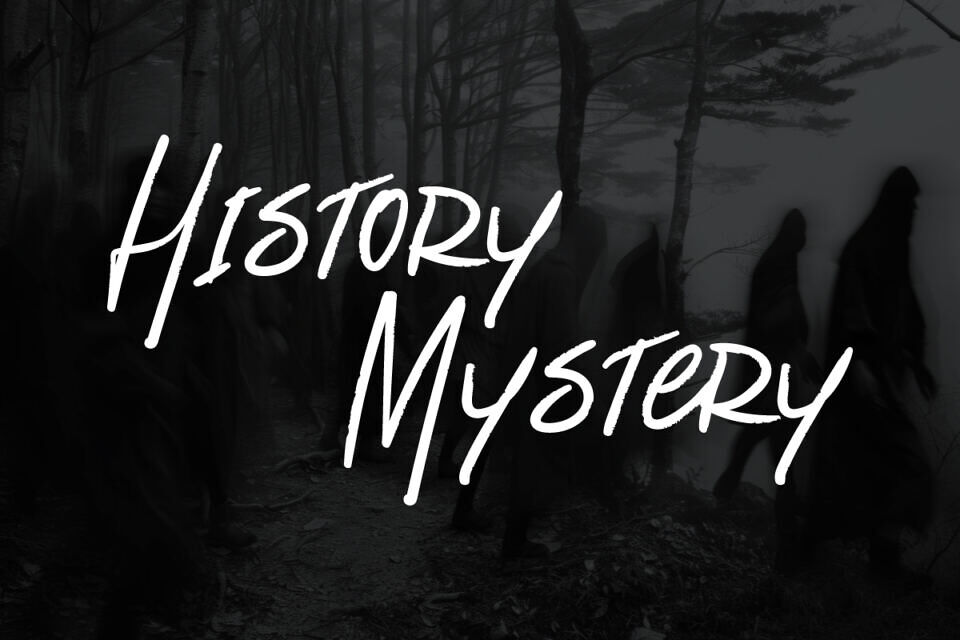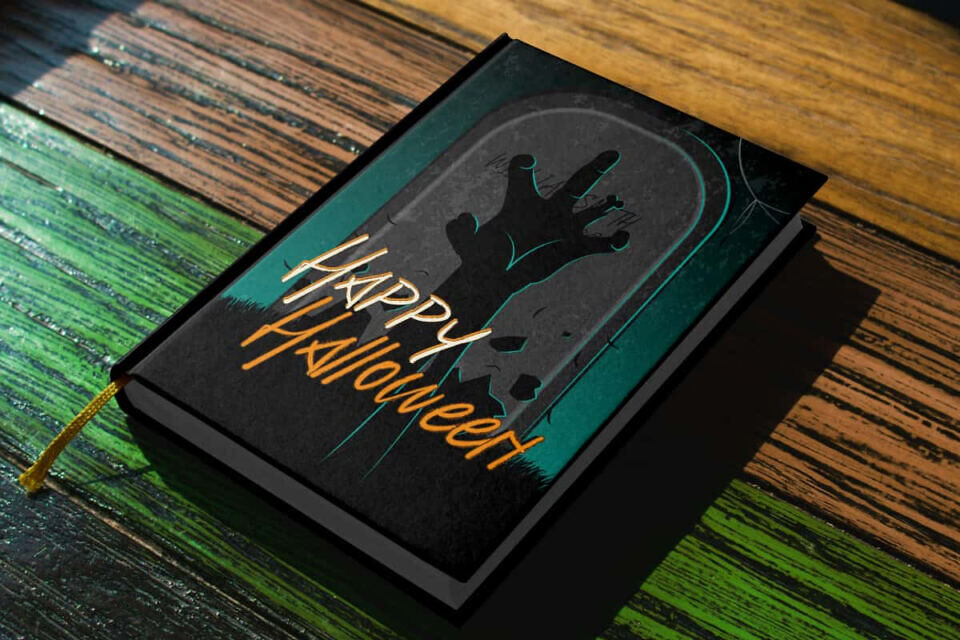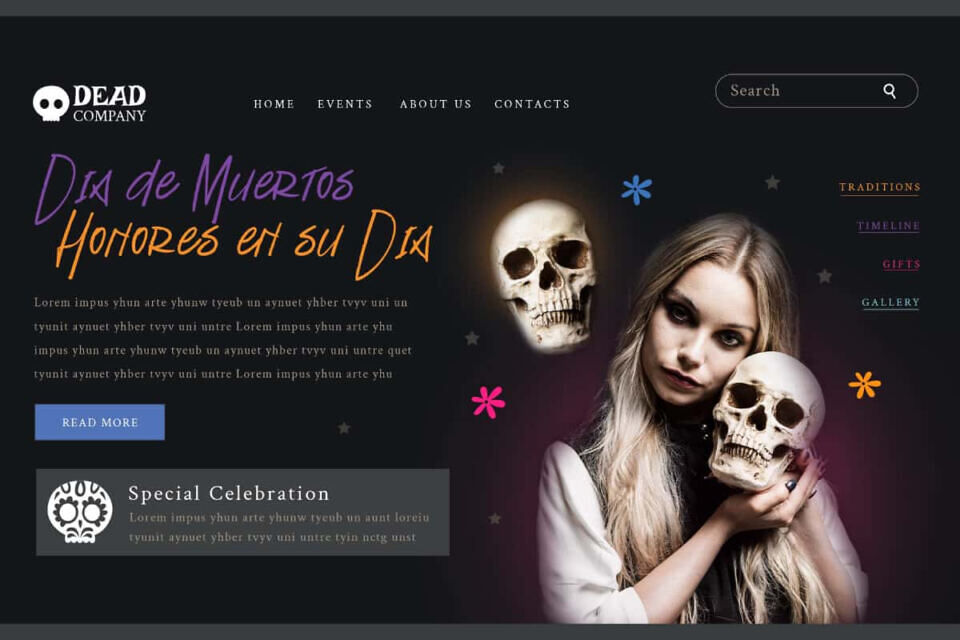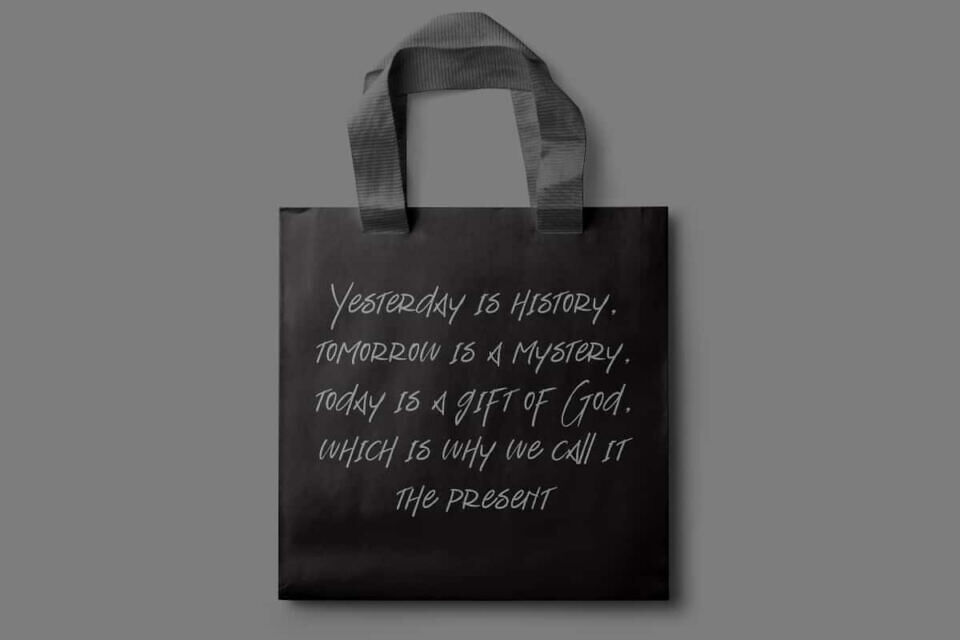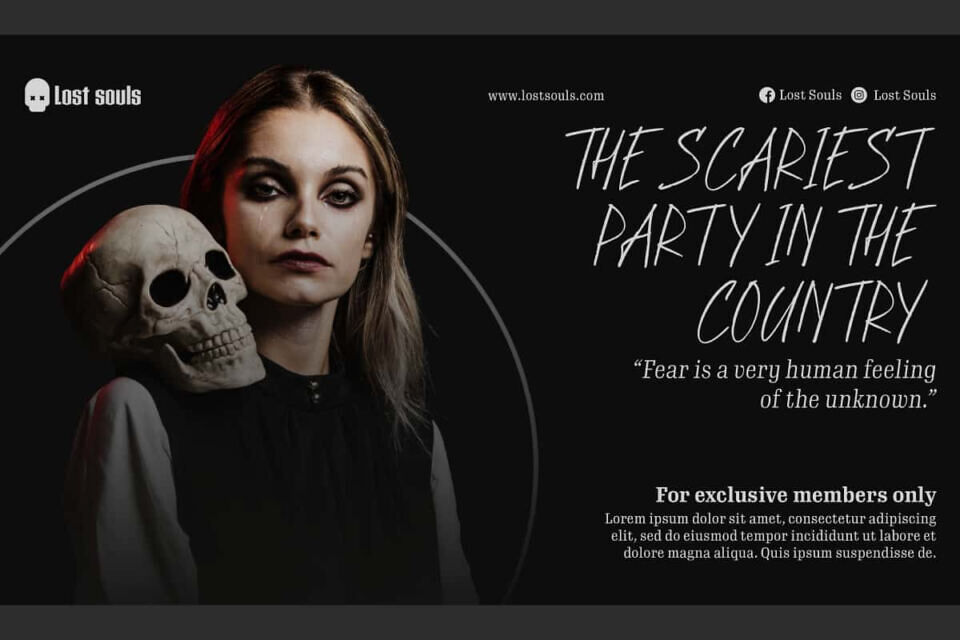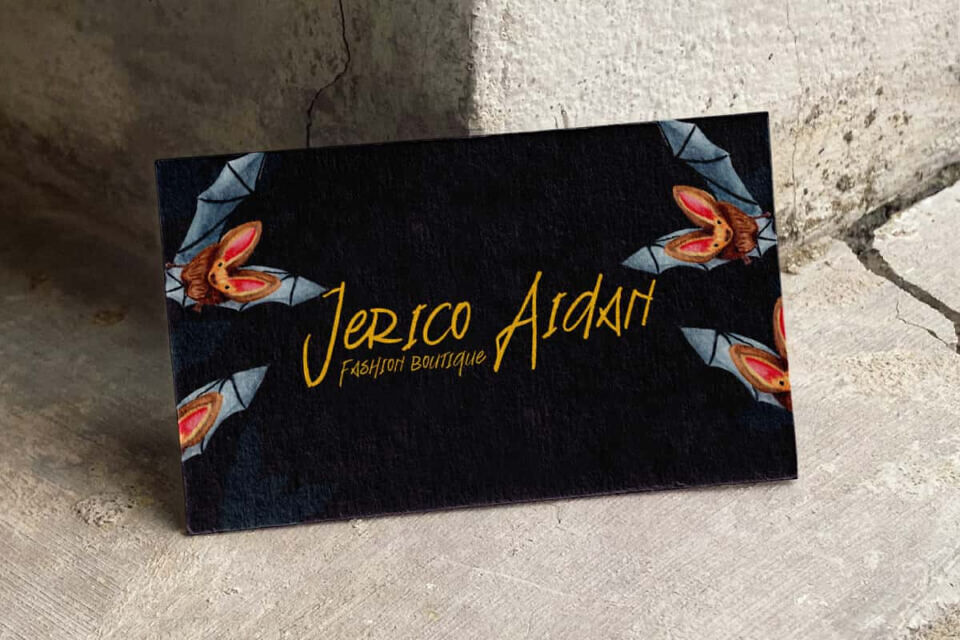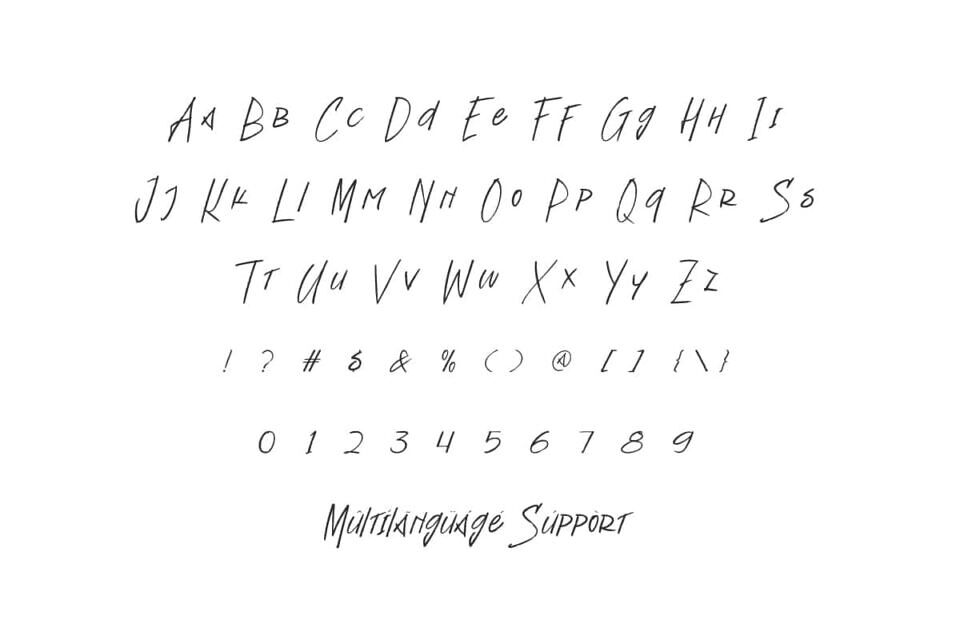
History Mystery Font is a handwriting font with a gothic and a bit of mysterious touch. This font will be suitable for many industries, such as advertisement, author and writer, beauty product, event or festival, florist, handicraft, homeware, jewelry and accessories, printing, publishing, and more!
History Mystery Font includes full set of Uppercase and Lowercase Basic Characters, Numerals, Punctuation, and Symbol. Its natural curved lines give a personal impression, as if written directly by hand. Making it a perfect choice for a variety of fields, such as brand image, brochure, business card, cover, custom designs, invitation, label, packaging design, poster, quotes, screen printing, website, etc.